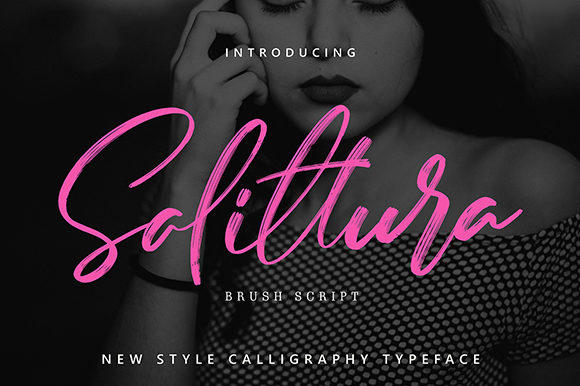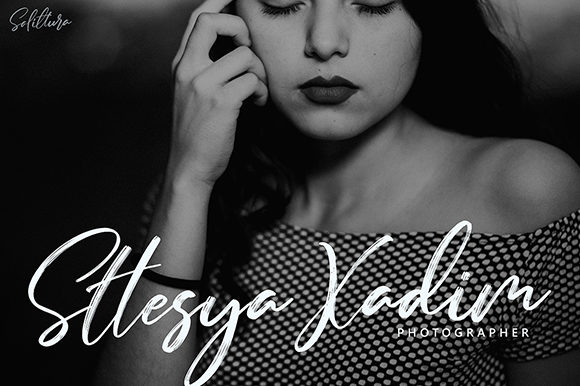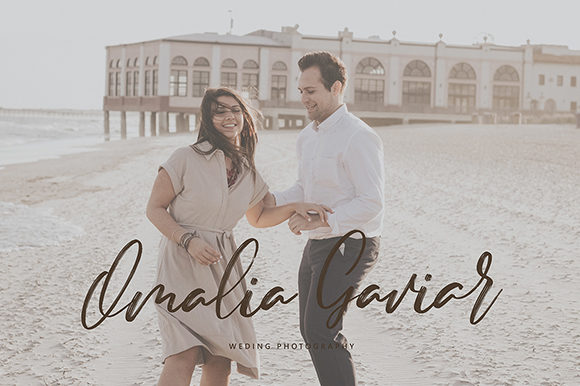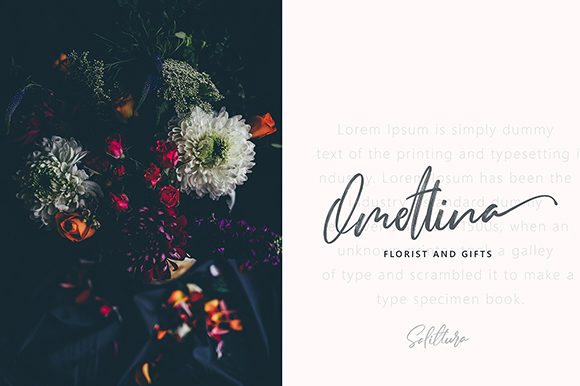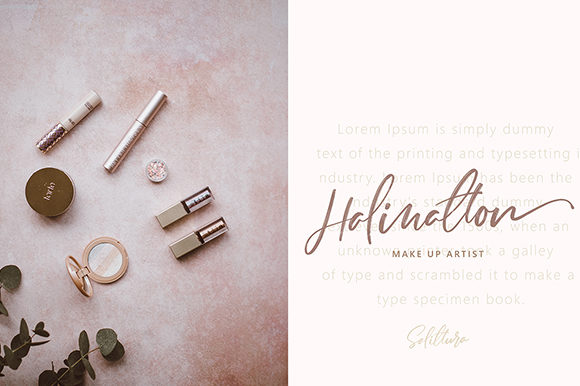
Salittura Font
About Salittura Font
Salittura is a light and charming handwritten font with a beautiful feel. It will turn any design idea into a stand out!